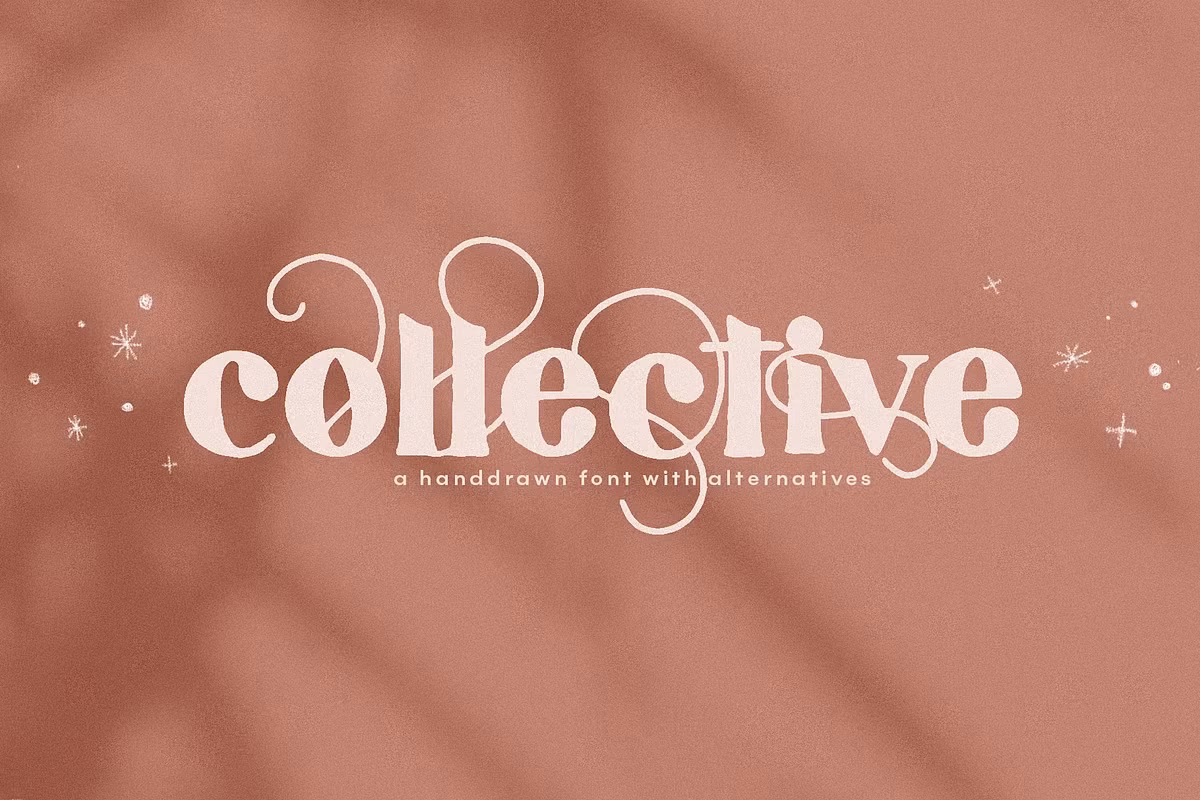
Collective | Handdrawn Serif Font Free Download
Collective | Handdrawn Serif Font Free Download is a unique and creative serif typeface that combines the charm of hand-drawn elements with the elegance of classic serif design. With its organic, imperfect strokes and bold character, this font is perfect for creative branding, packaging, logos, and projects that need a personal, artistic touch.
The font’s handcrafted feel adds warmth and individuality, making it ideal for designs that aim to stand out with a stylish and authentic look. Whether you’re designing for a boutique brand, a personal project, or any design that requires a bespoke touch, Collective adds character and flair to your typography.